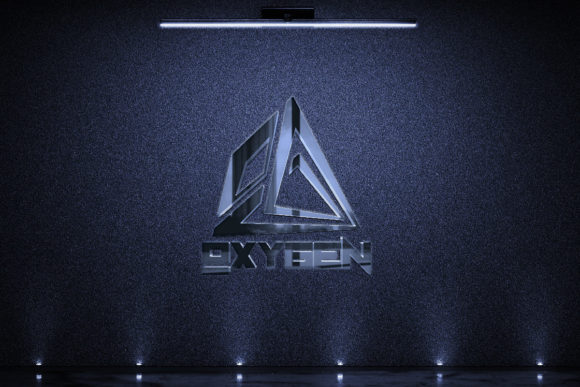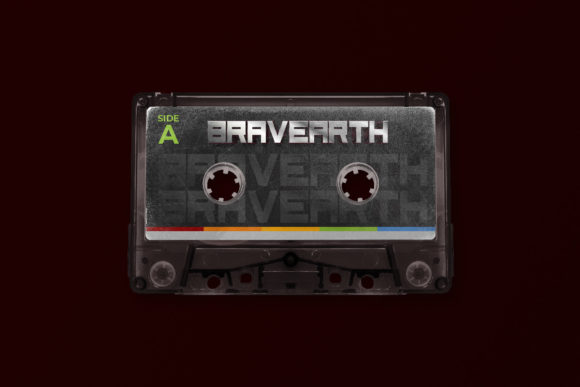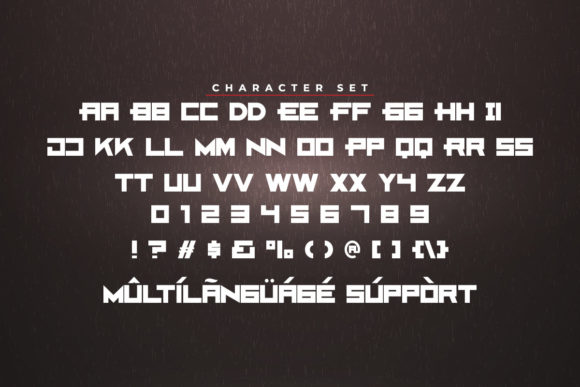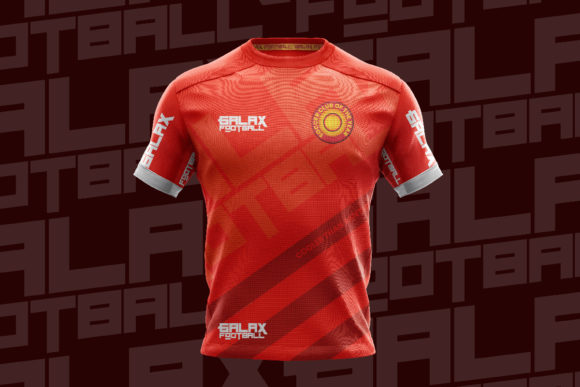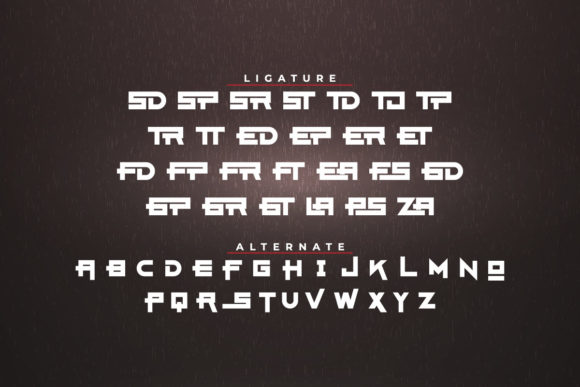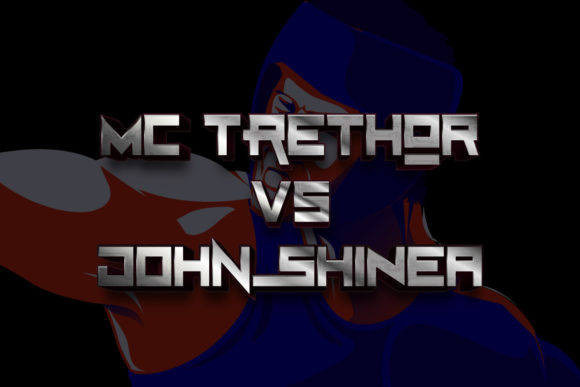
Unleash Your Creativity with Fight Kick Font: A Versatile Display Font for Modern Designs
In the world of typography, a font can make or break a design. When it comes to creating visually striking logos, branding, headlines, and signage, the right font is essential. This is where Fight Kick Font comes into play – a splendid display font that offers a range of styles to cater to diverse design needs. In this article, we’ll dive into the features and benefits of Fight Kick Font, exploring how it can elevate your designs and help you achieve your creative goals.
What is Fight Kick Font?
Fight Kick Font is a modern display font that boasts a variety of styles, including modern, techno, strong, masculine, sporty, and more. This versatility makes it an excellent choice for designers and crafters looking to create unique and captivating designs. Whether you’re working on a logo, branding project, or signage, Fight Kick Font has got you covered.
Key Features of Fight Kick Font
- Variety of Styles: Fight Kick Font offers a range of styles to suit different design requirements. From modern and techno to strong and sporty, you can choose the perfect style to match your project’s tone and aesthetic.
- PUA Encoded: This font is PUA (Private Use Area) encoded, which means you can access all the glyphs and swashes with ease. This feature allows for greater flexibility and creativity in your designs.
- Easy to Use: Fight Kick Font is designed to be user-friendly, making it easy to incorporate into your projects. Whether you’re a seasoned designer or a beginner, you can quickly get started with this font.
Benefits of Using Fight Kick Font
So, why choose Fight Kick Font for your design projects? Here are some benefits that set it apart:
- High-Impact Designs: With Fight Kick Font, you can create high-impact designs that grab attention and leave a lasting impression. Its bold and striking appearance makes it perfect for logos, headlines, and signage.
- Versatility: The font’s versatility allows you to experiment with different styles and tones, ensuring that your design aligns with your brand’s identity and message.
- Time-Saving: Fight Kick Font’s PUA encoding and user-friendly design save you time and effort, allowing you to focus on other aspects of your project.
Who Can Benefit from Fight Kick Font?
Fight Kick Font is an excellent choice for a range of designers and crafters, including:
- Graphic Designers: Create stunning logos, branding, and marketing materials with Fight Kick Font’s bold and modern styles.
- Signage Designers: Make a statement with eye-catching signage that showcases your brand’s personality and message.
- Crafters: Add a professional touch to your craft projects, such as handmade cards, invitations, and DIY decor.
Tips for Using Fight Kick Font
To get the most out of Fight Kick Font, here are some tips to keep in mind:
- Experiment with Styles: Try out different styles to find the one that best suits your project’s tone and aesthetic.
- Play with Swashes: Use the font’s swashes to add a touch of elegance and sophistication to your designs.
- Pair with Other Fonts: Combine Fight Kick Font with other fonts to create a unique and visually appealing typography.
Fight Kick Font is a powerful display font that offers a range of styles and benefits for designers and crafters. Its versatility, ease of use, and high-impact designs make it an excellent choice for logos, branding, headlines, signage, and more. Whether you’re a seasoned designer or just starting out, Fight Kick Font is sure to elevate your designs and help you achieve your creative goals.